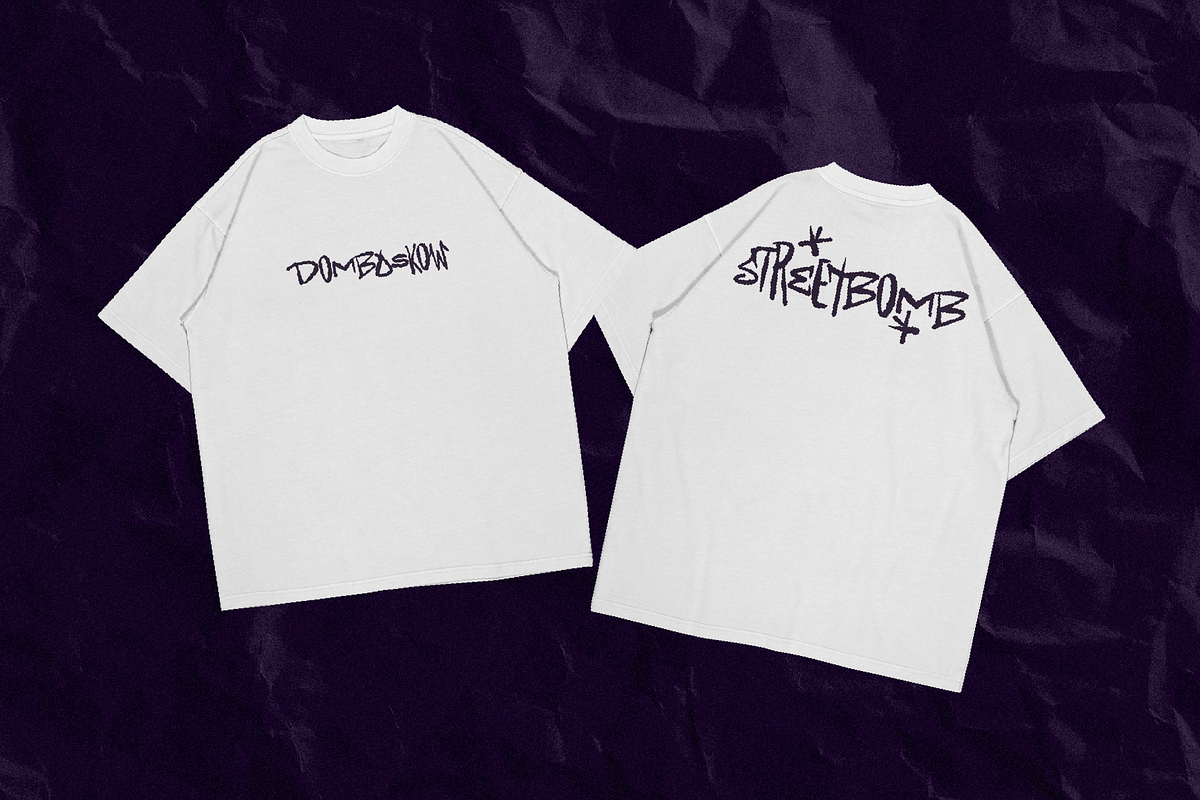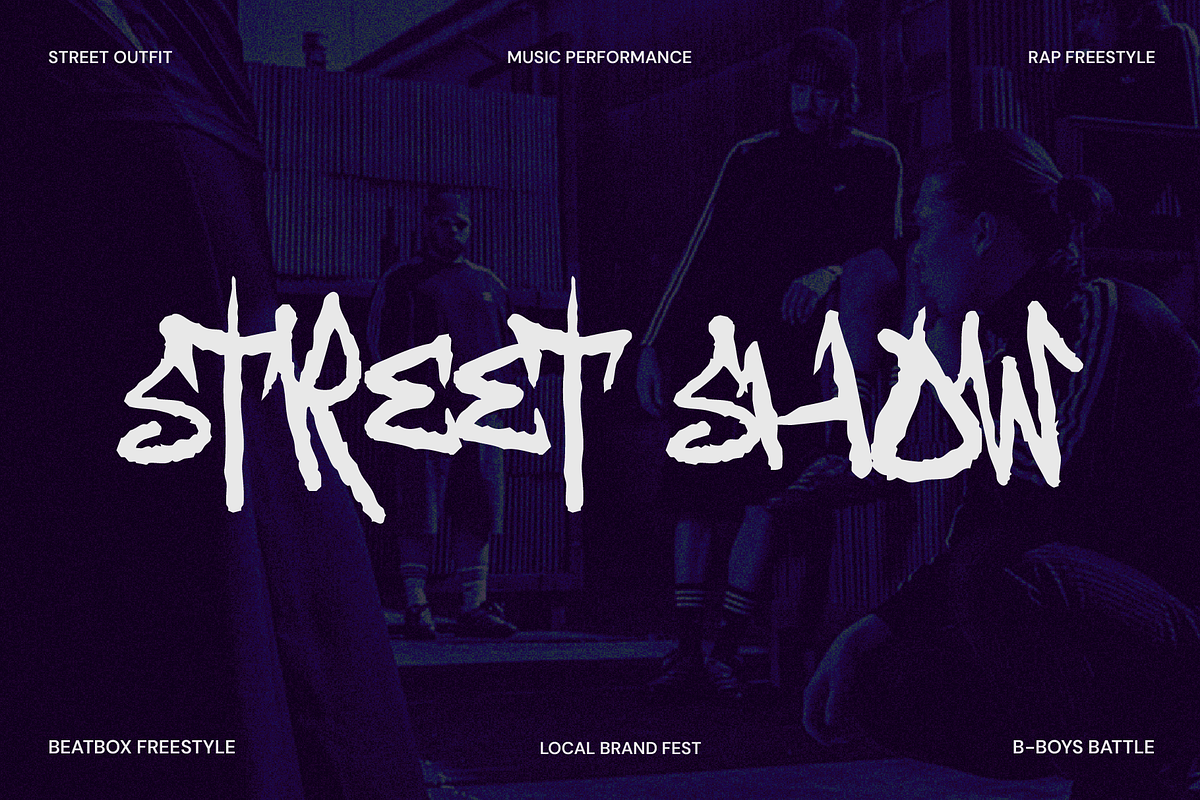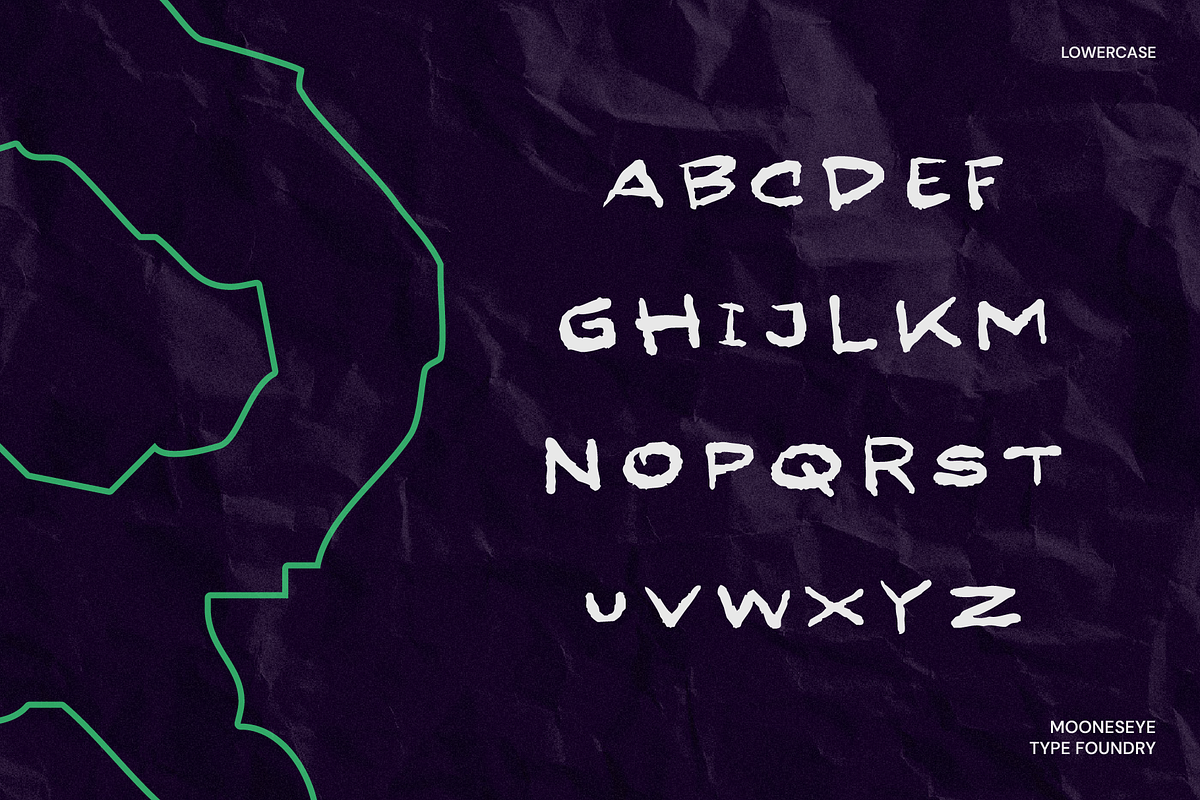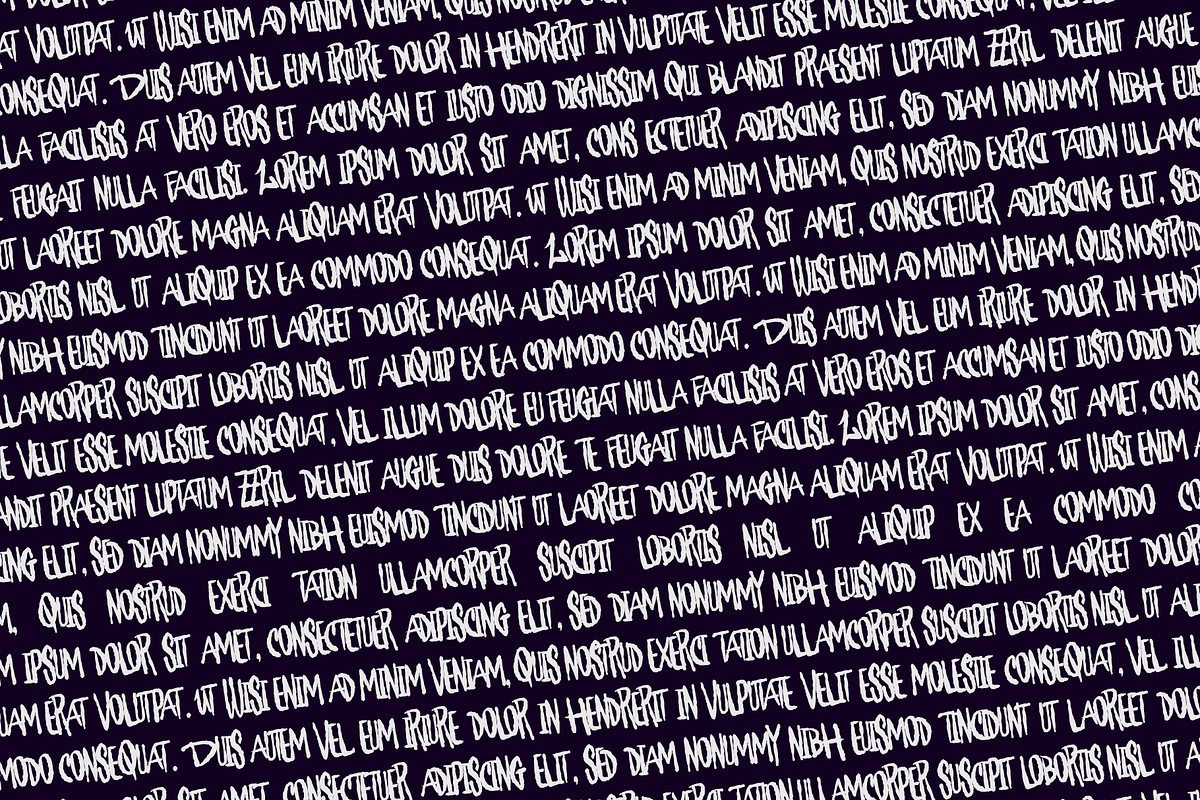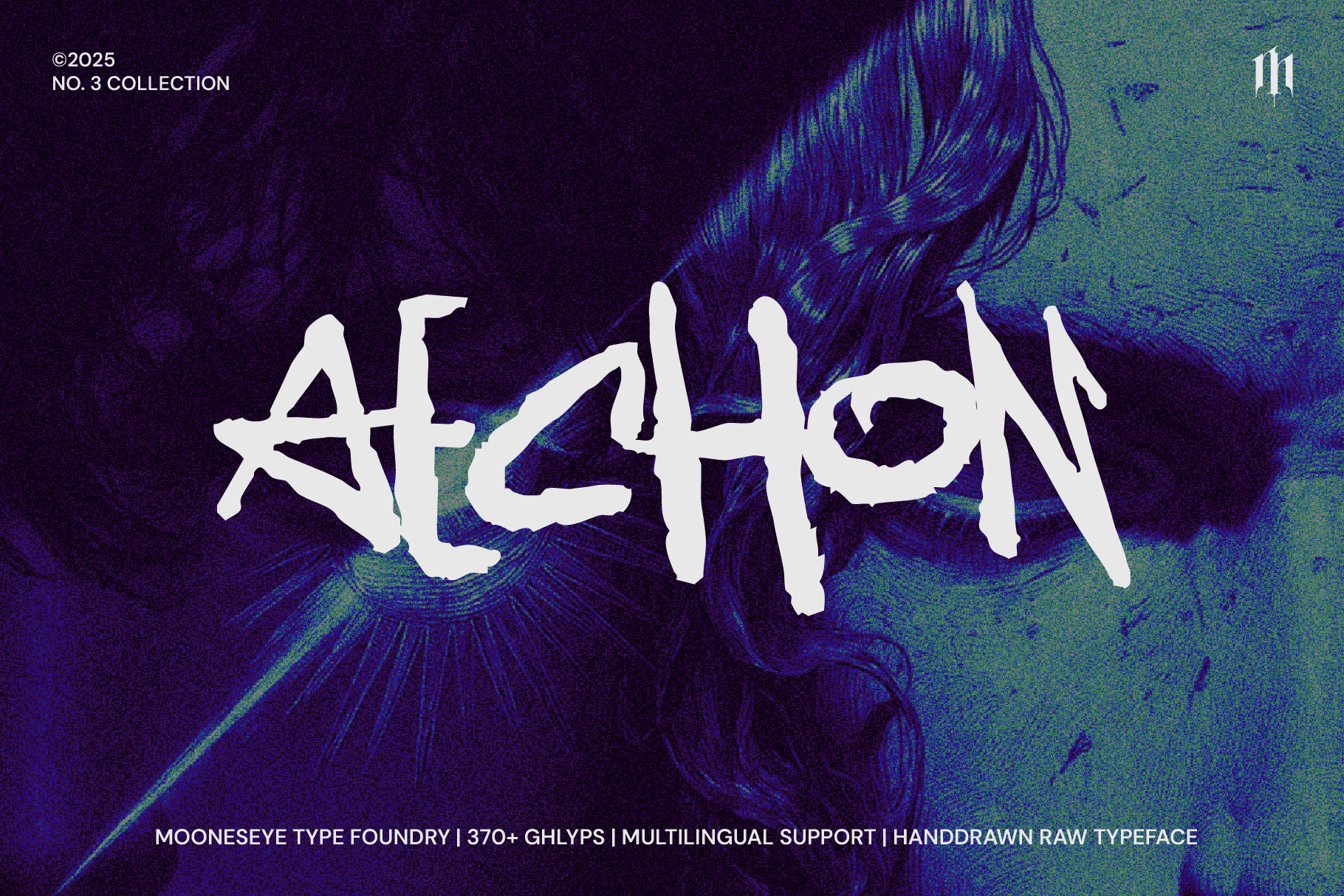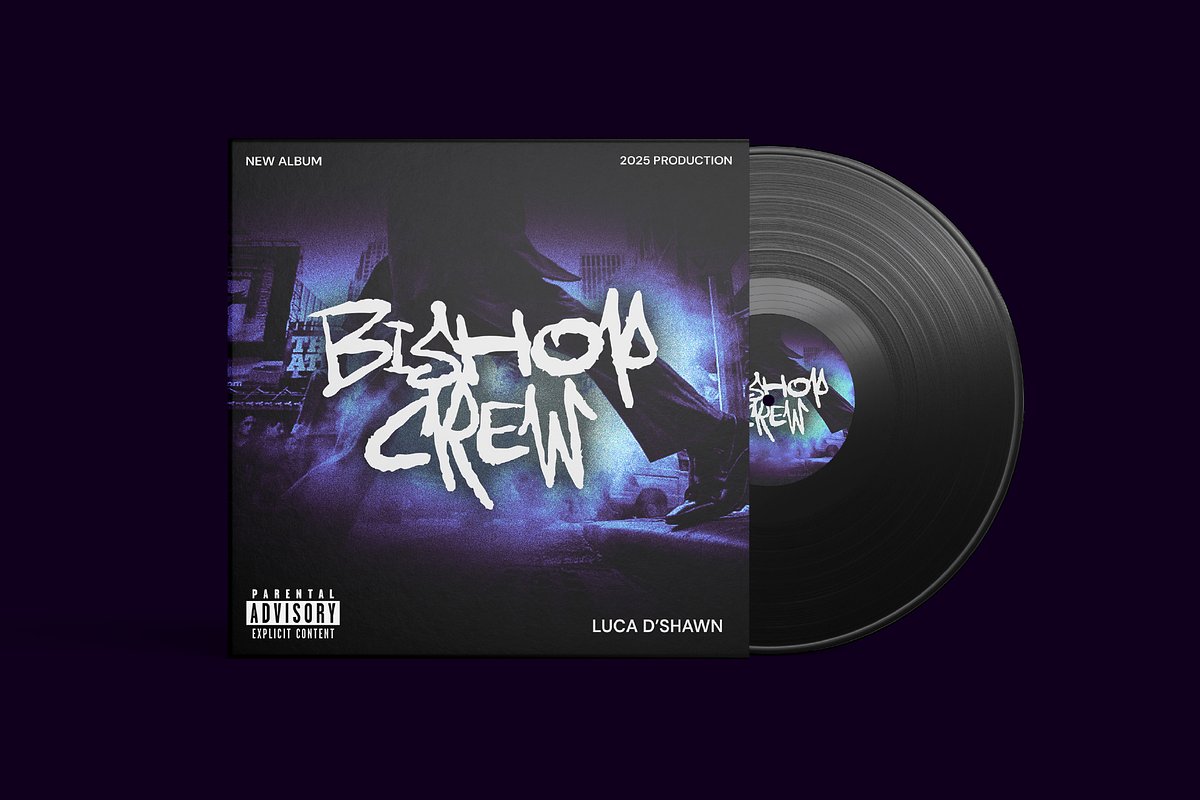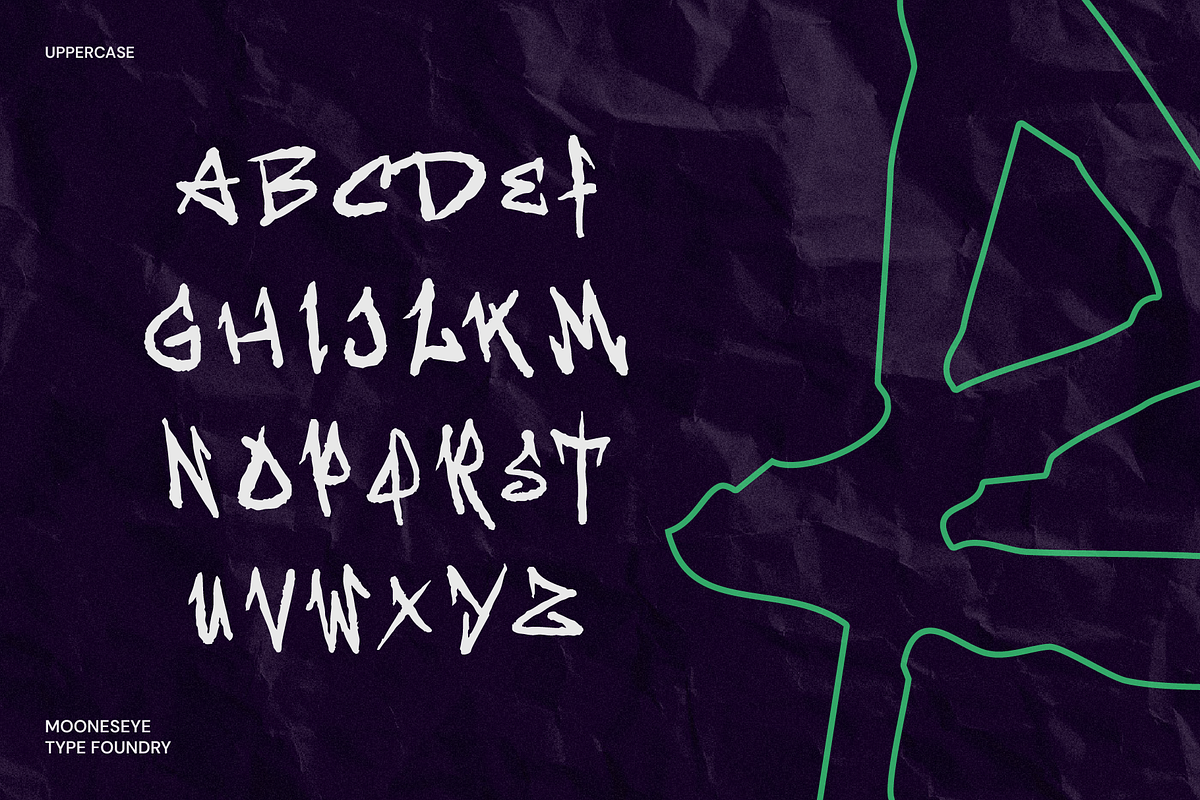
Aechon - Raw Brush Font
Unleash the raw, defiant power of the Aechon Raw Brush Font and give your designs immediate street credibility. This isn't a polite script—it's an aggressive, high-energy display typeface designed to demand attention and make a statement.
Stop blending in. Aechon is your shortcut to an authentic, hand-drawn graffiti style, perfect for projects that need to look gritty, loud, and non-conformist. The letters feature a jagged, distressed texture that screams urban culture, hip-hop, punk, and alternative music.
Whether you're creating a bold streetwear logo, a punk album cover, or a high-impact event flyer, Aechon instantly provides that powerful, rebellious edge you're looking for. Just type, and the swag is built-in.
Suitable For
- Streetwear & Apparel Branding (T-Shirts, Hoodies, Merch)
- Hip-Hop, Rap, Punk, or Metal Album/EP Covers
- High-Energy Event Posters and Flyers (Festivals, Battles, Gigs)
- Urban/Alternative Brand Logos and Packaging
- Social Media Graphics (YouTube Thumbnails, Instagram Quotes)
- Extreme Sports or Gaming Branding
- Animated Text Overlays for Video Content